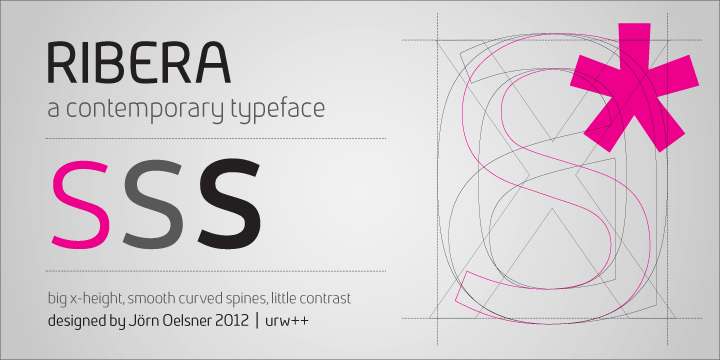
• Ribera™
Ribera is a contemporary sans serif typeface including three styles. The Ribera characters have smooth curved spins and little contrast combined with a big x-height and big counters. These characteristics make Ribera ideal for almost any type of graphic design.
Its unique look is well suited for corporate identity, its precise drawing for branding and poster design, the fresh look for advertising and the clear appearance for sign posting. But also editorial design benefits from Ribera. It expresses a modern look in headlines and stays highly legible in small sizes. More…
As part of the URW++ SelecType collection, Ribera meets very high quality standards. The character set includes various OpenType features and a broad language support.